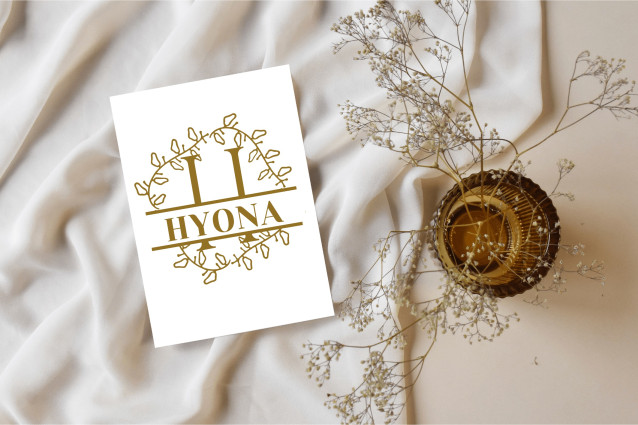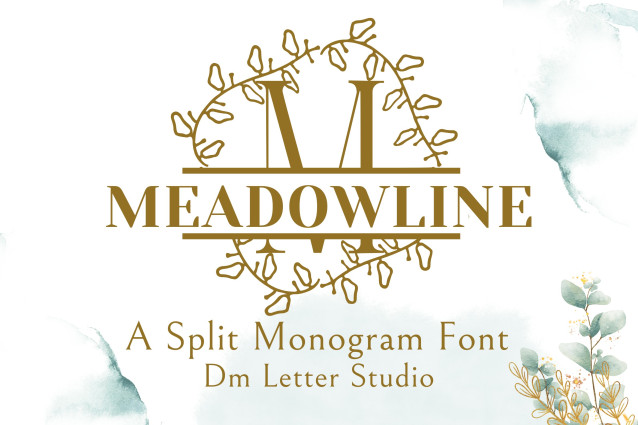
MeadowLine Split Monogram Font
MeadowLine Split Monogram is a graceful serif font designed with a clean horizontal split through each uppercase letter, perfect for personalization. Delicate line-art floral illustrations gently frame each letter, inspired by wild meadows and soft botanical forms. This timeless design is ideal for wedding signage, personalized gifts, Cricut projects, and romantic branding.